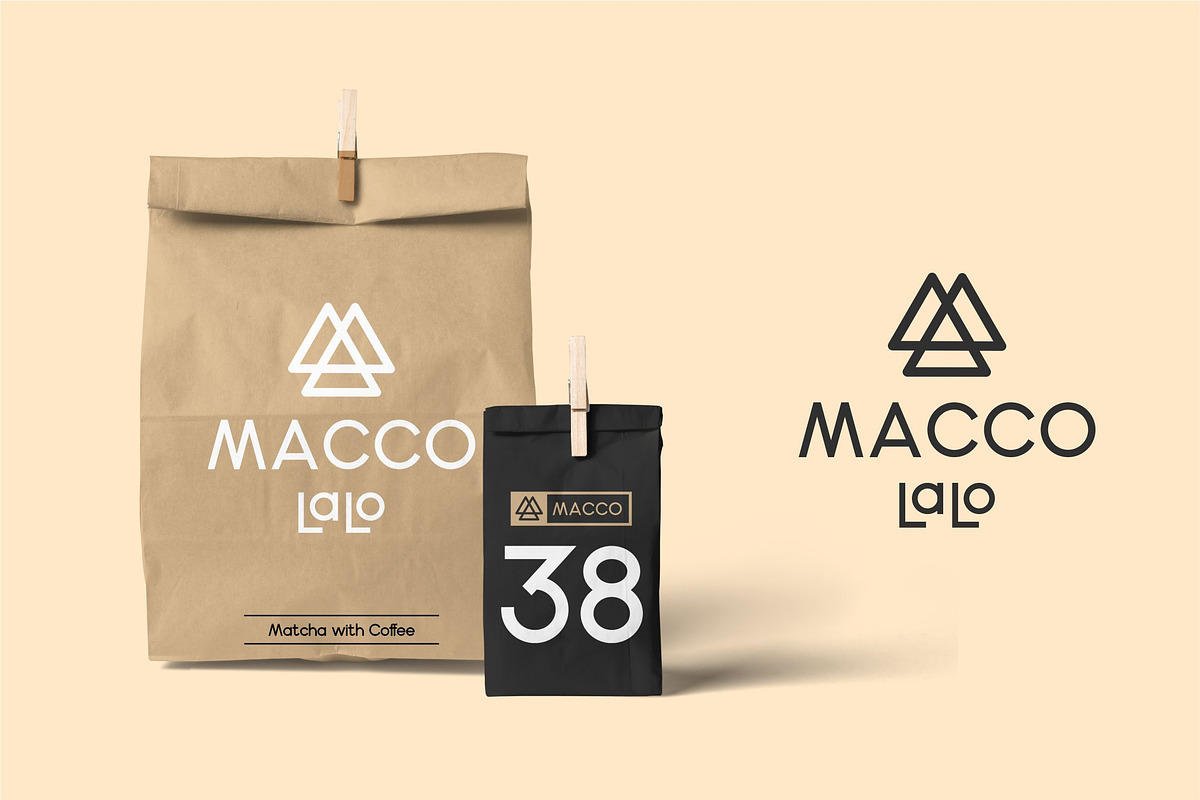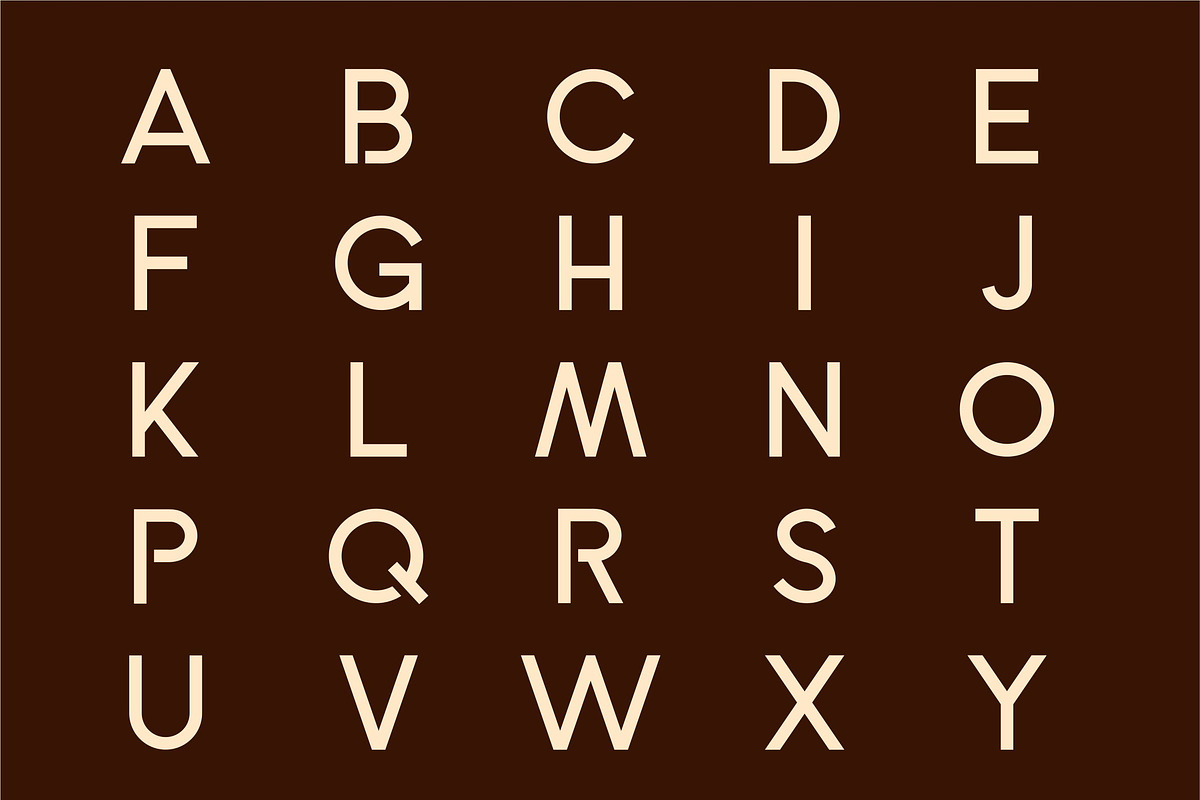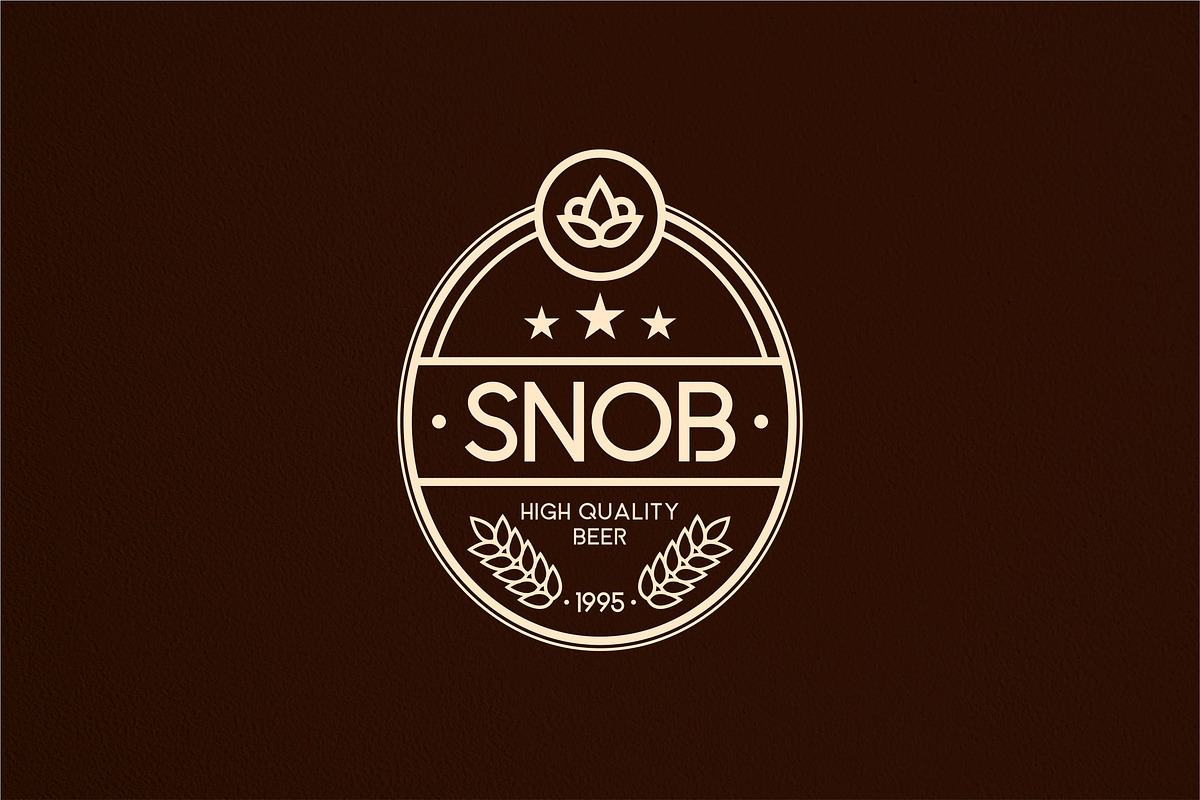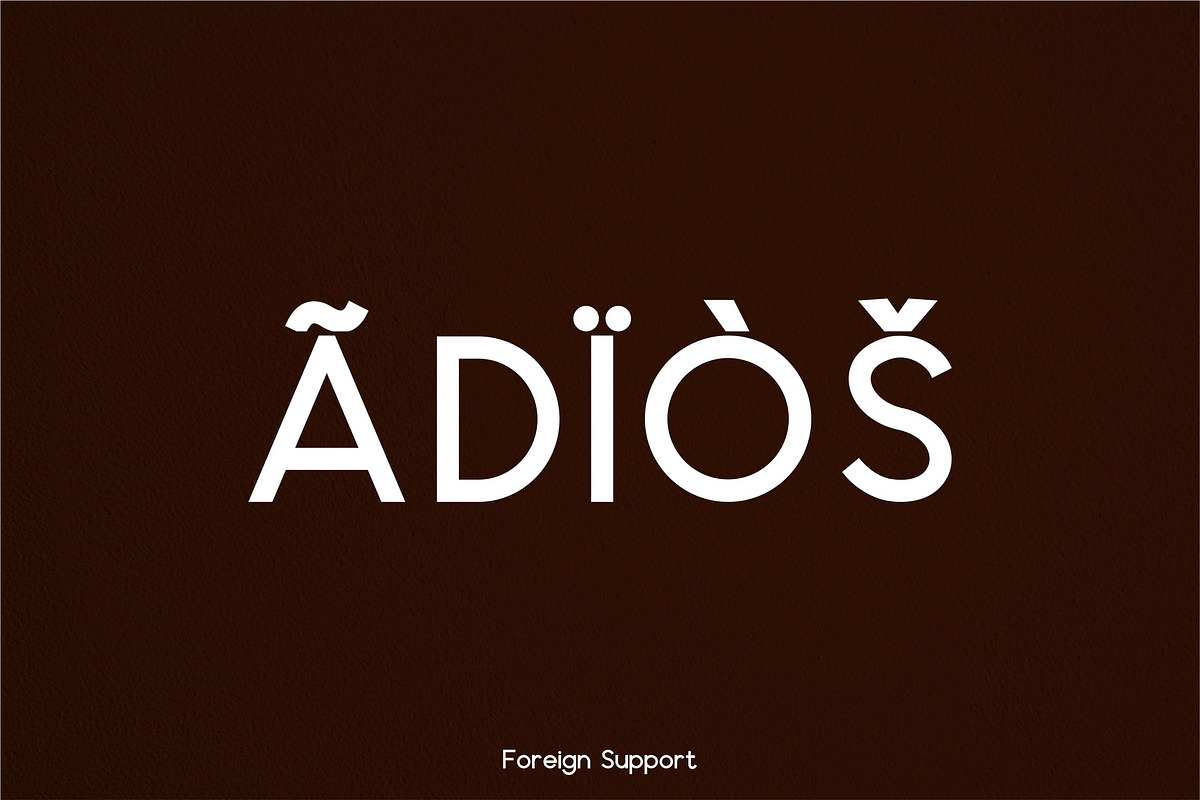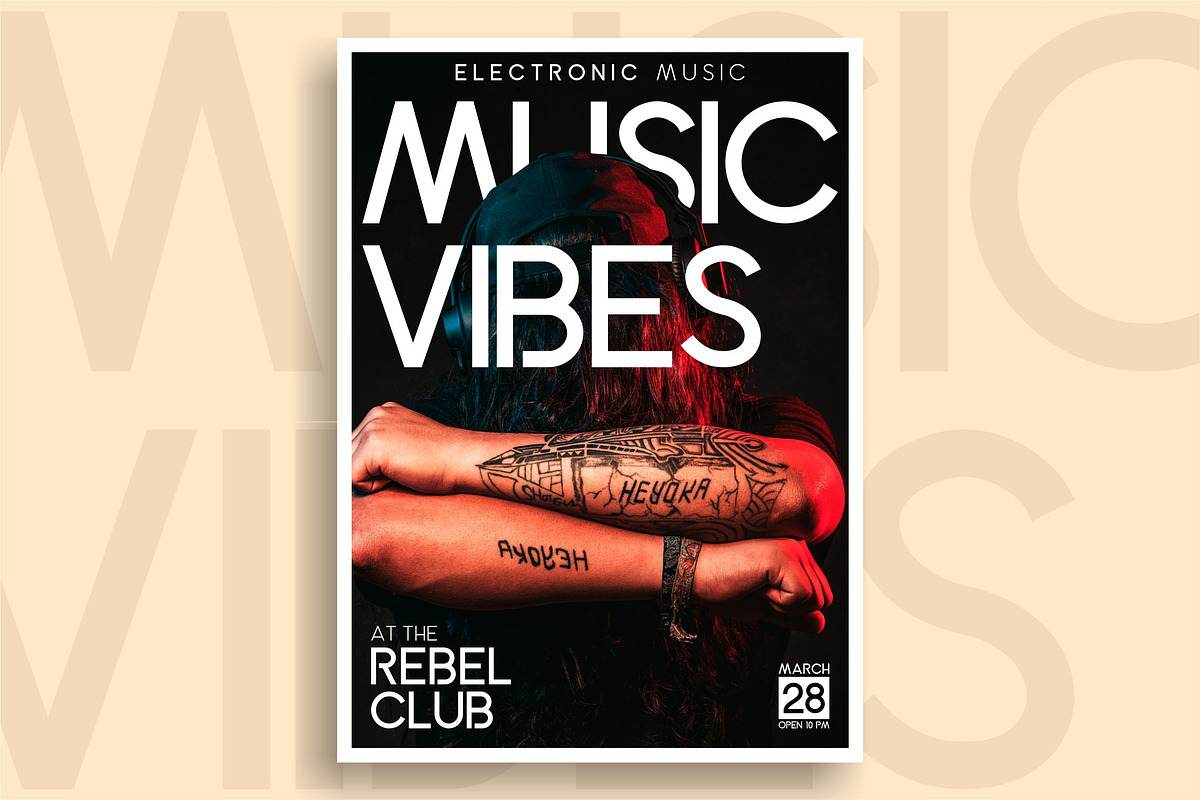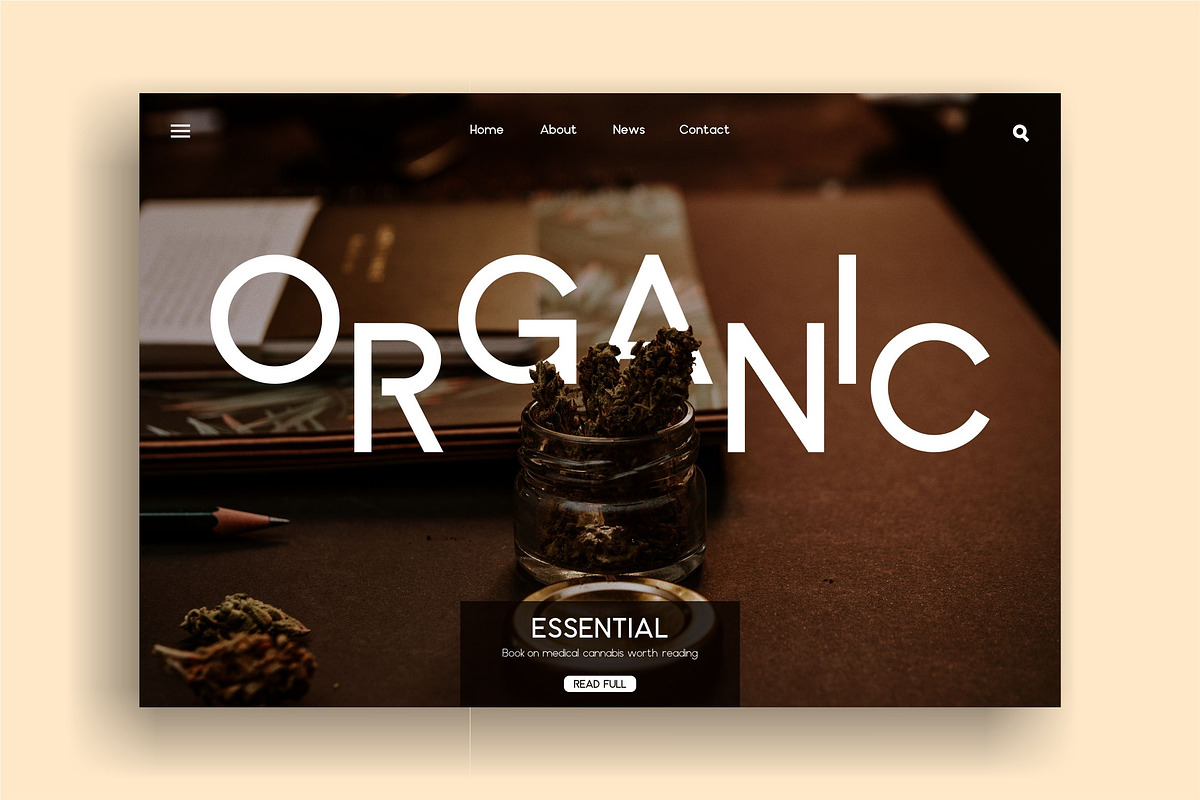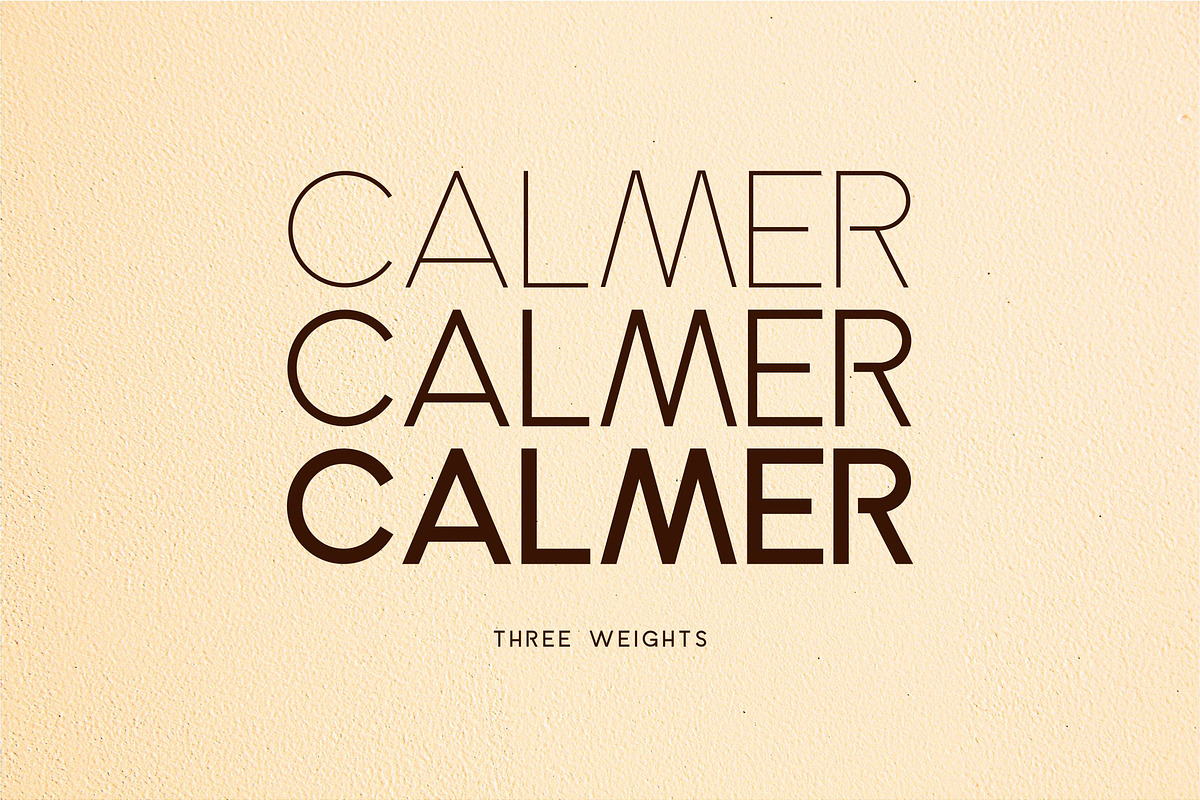
Calmer Font Family
Calmer is a proportional font family and sophisticated sans serif. Inspired by branding typography, it's sturdy uncompromising style is felt through the controlled letterforms and modern touches. A balance of hard lines and smooth curves. Each font in the family can stand on its own, dynamic and authoritative in their own right.
Calmer includes six Family
Calmer Regular Italic
USE Calmer works great in any branding, logos, magazines, films. The different weights give you full range to explore a whole host of applications, while the outlined fonts give a real modern feel to any project.